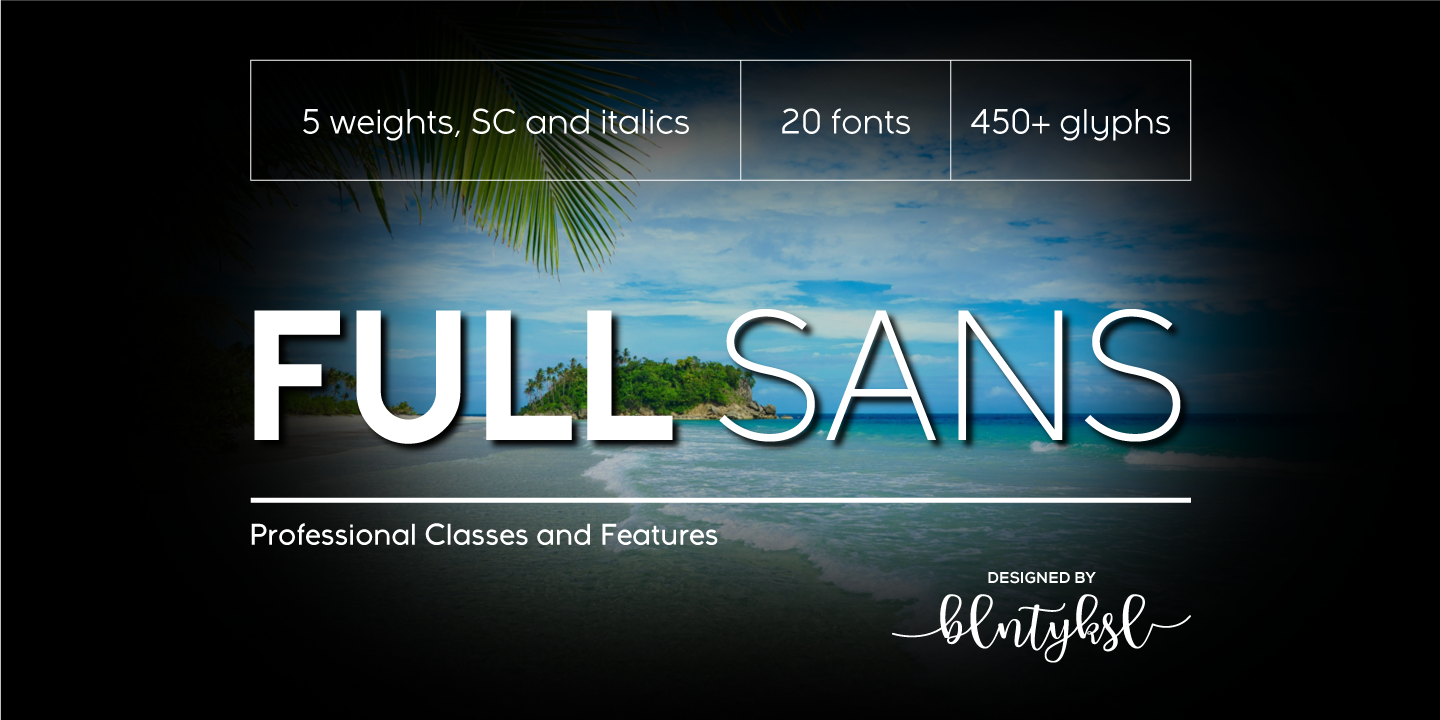
Full Sans Font Free Download is a clean, modern sans-serif typeface designed for versatility and readability. Featuring simple, geometric letterforms and balanced proportions, Full Sans Font is perfect for branding, corporate identities, web design, editorial layouts, packaging, and social media graphics. Its minimalist and professional aesthetic makes it ideal for projects that aim to convey clarity, confidence, and modern sophistication.
Whether you're crafting logos, business presentations, marketing materials, or digital content, Full Sans Font provides a polished, versatile solution that works seamlessly across print and digital platforms. Its clear, understated style ensures your message is communicated effectively with a timeless, modern look.